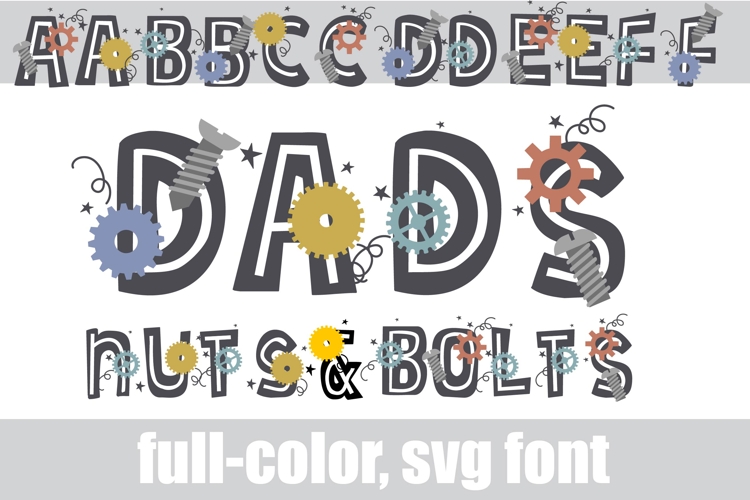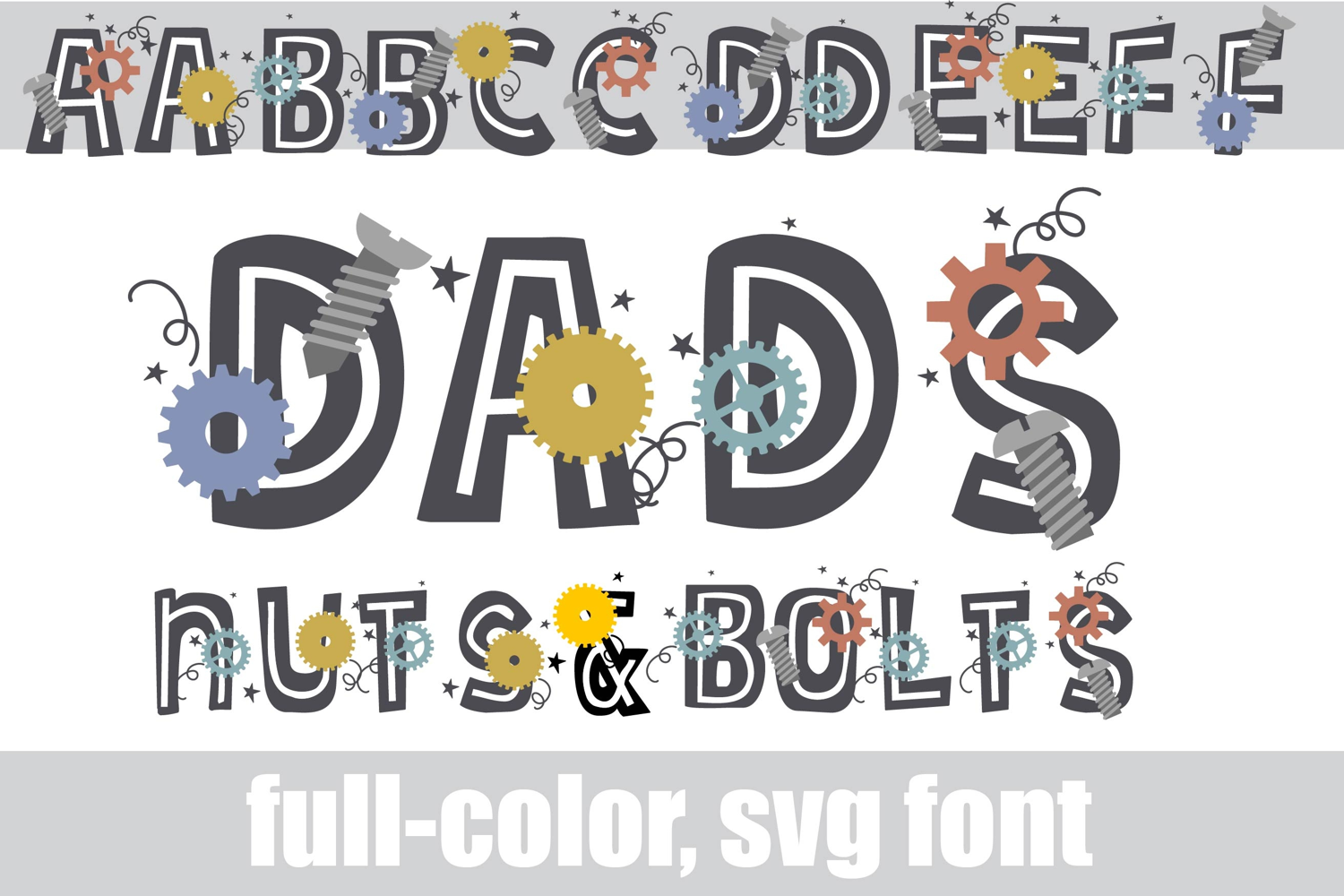
Dads Nuts and Bolts Subdued Color Font
This full-color, sans serif font features mechanical parts. There is an alt case of additional colors of each letter that you can access through your system's character map.